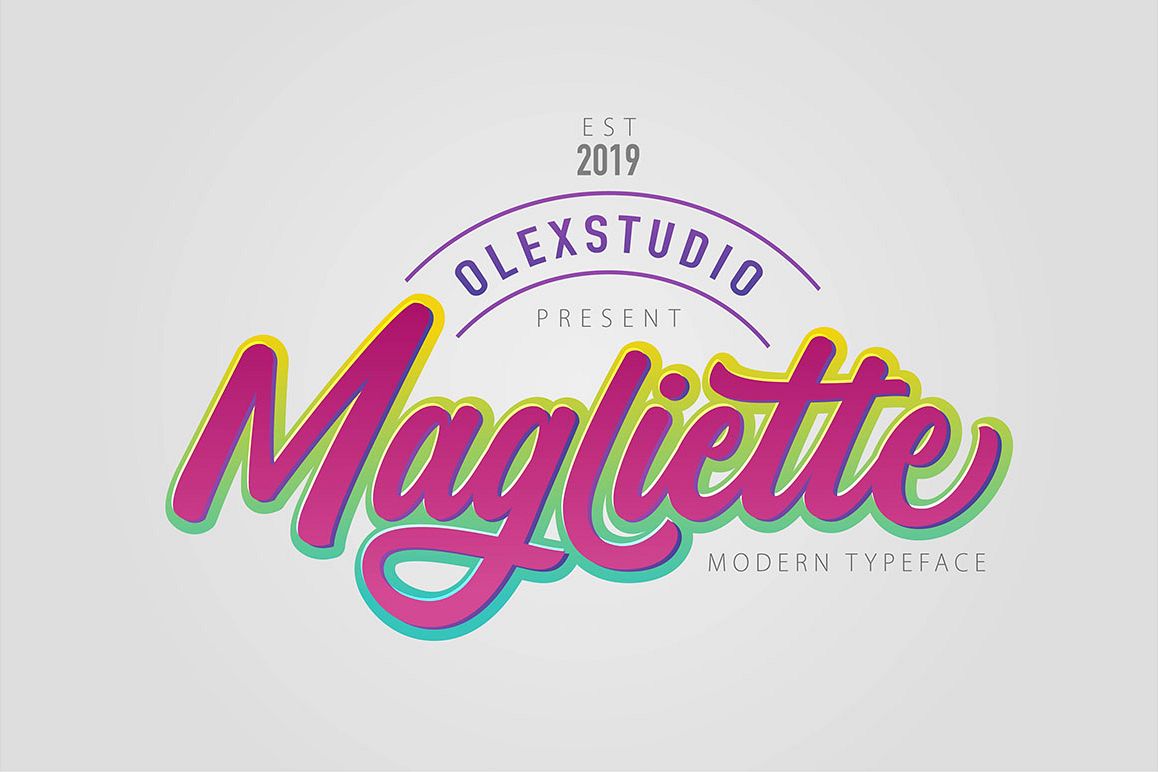
MAGLIETTE
MAGLIETTE Script is a beautiful Script font Typeface, This Font will look gorgeous on all your designs, book,
branding materials, logo's, t-shirt, poster, fashion product, quotes and all project design other.
MAGLIETTE Script contains standard characters, lowercase, Uppercase, numbers, punctuation,